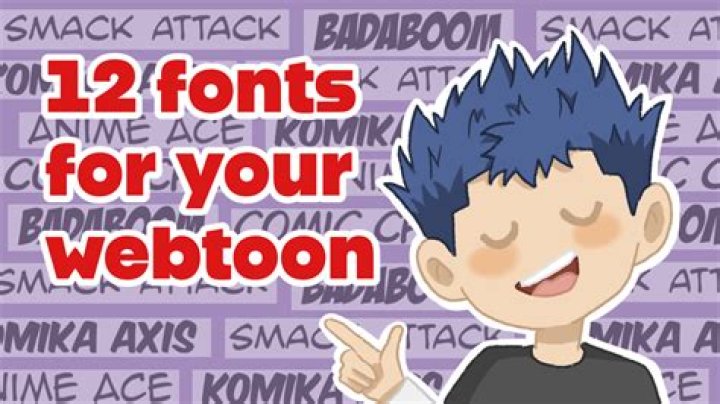
Thereof, what font is used in comics?
Badaboom is the original comic book font that's been used worldwide in print and television use.
One may also ask, what is the superhero font called?
The comic sans font was designed in 1994 for Microsoft by typographer Vincent Connare with the intention of providing a casual style typeface reminiscent of comic book lettering. The problem with comic sans appears to be its overuse and misuse.
What are the four types of fonts?
There are four eLearnign font categories to consider when designing your layout. Serif, sans-serif, script and decorative.Is Comic Sans a professional font?
Comic Sans MS is a sans-serif casual script typeface designed by Vincent Connare and released in 1994 by Microsoft Corporation. It is a non-connecting script inspired by comic book lettering, intended for use in informal documents and children's materials.What is a good bubble letter font?
Pull down the font menu and click a bubble-like font. While Publisher doesn't come standard with an actual bubble font, some bubble-like included fonts are Aharoni, Bauhaus 93, Hobo Std and Snap ITC.What font is the Superman text?
The font used for the title on the comic book cover is a customized one with some 3d effects. A font named Up Up and Away designed by John Roshell is very similar to the lettering. The font is a commercial one and you can find more details about it here.What font family is Comic Sans?
CSS Web Safe Font Combinations| font-family | Example text |
|---|---|
| Arial, Helvetica, sans-serif | This is a heading This is a paragraph |
| "Arial Black", Gadget, sans-serif | This is a heading This is a paragraph |
| "Comic Sans MS", cursive, sans-serif | This is a heading This is a paragraph |
Why is Comic Sans a bad font?
But why, more than any other font, has Comic Sans inspired so much revulsion? Partly because its ubiquity has led to such misuse (or at least to uses far beyond its original intentions). And partly because it is so irritably simple, so apparently written by a small child.What font is Dilbert written in?
Mufferaw is part of a family of 14 fonts by Typodermic Fonts. The regular style is free to download here. Looking very Dilbert-esque, the Dilbert font consists of all uppercase letters.How do I install font on Mac?
- Select any other fonts you want from the left column, then click "Ok" when finished. These fonts will be added to your main list.
What is the longest Webtoon?
Jo began posting The Sound of Heart on Naver Webtoon in September 2006, and by 2014 it was the longest running webtoon on the platform.Can you get free coins on Webtoon?
The WEBTOON app is free to download and use! WEBTOON exclusive Originals are free to read and are updated weekly. You can purchase Coins to read the earliest episodes before anyone else with Fast Pass.What time does Webtoon update?
NEW UPDATE HOUR will start to become effective as of October 1st, 2015. ?will all be updated at EST 00:00 AM (=Midnight of September 30th)? instead of EST 10:00AM. So webtoons of Monday will be updated on Monday at 00:00 AM EST, and so forth. Please keep the new update hour in mind and continue enjoying the comics.How old do you have to be to start a Webtoon?